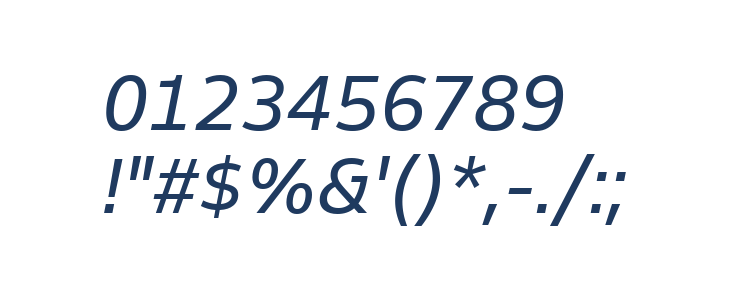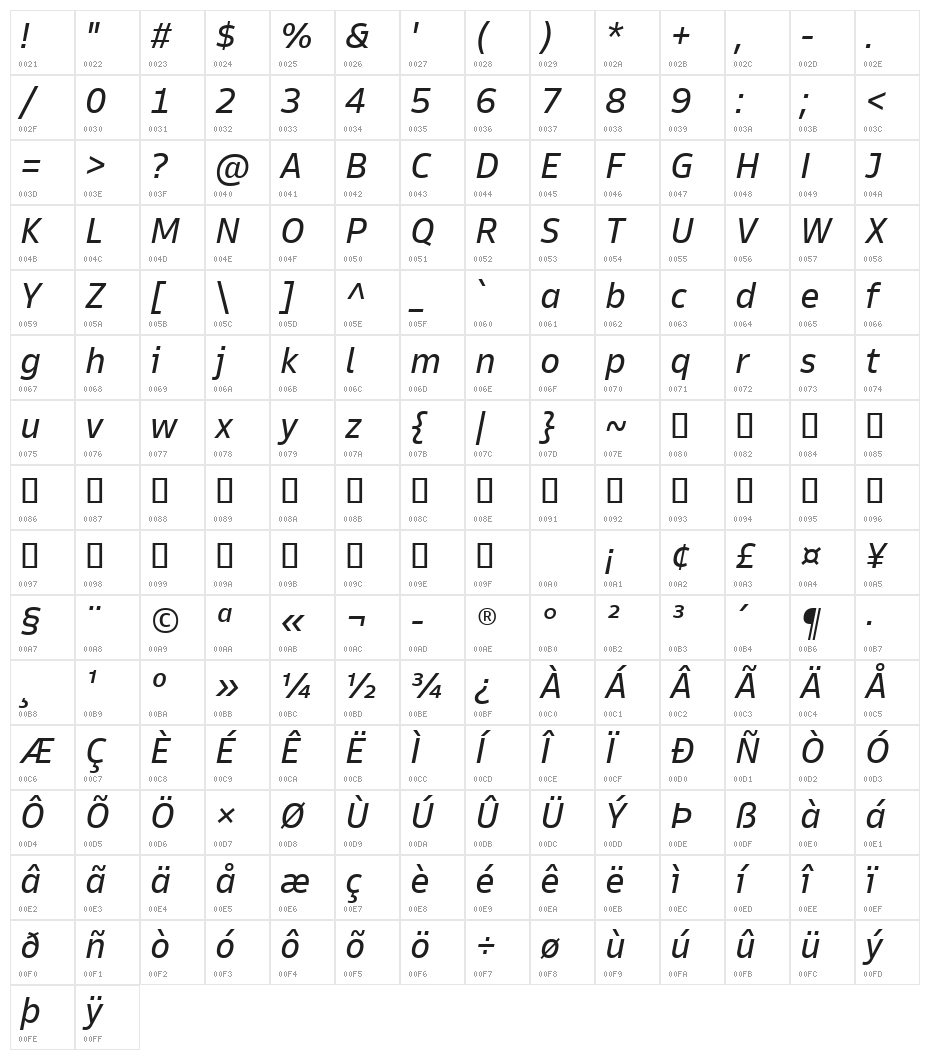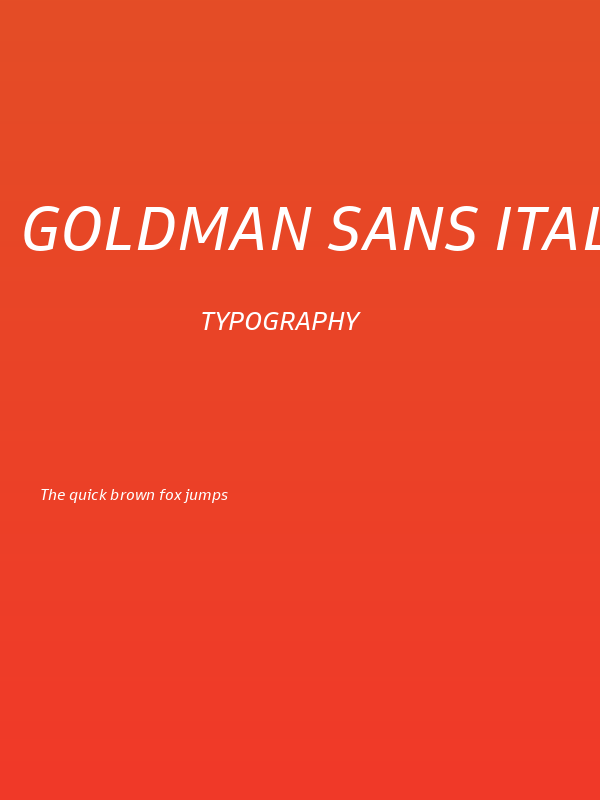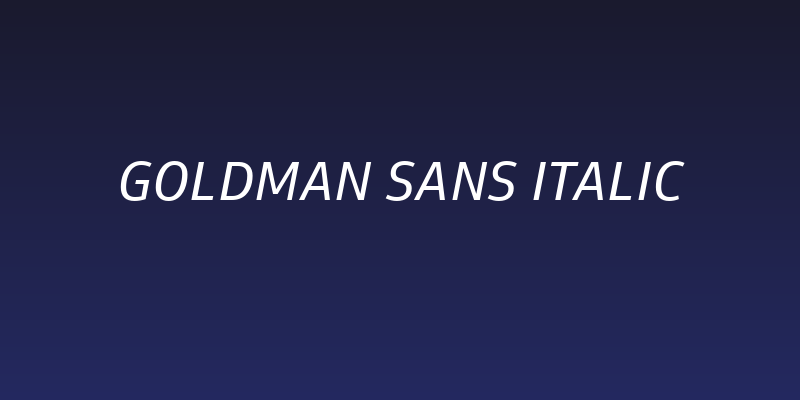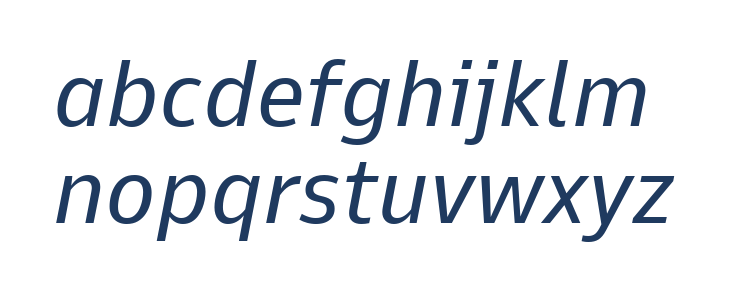
Goldman Sans Italic Font
Goldman Sans Italic Description
This font features a sleek and modern sans-serif design with a slight italic slant, giving it a dynamic and forward-moving appearance. The characters are clean and well-defined, with consistent stroke widths that provide a uniform look across both uppercase and lowercase letters. The numerals are clear and easily distinguishable, making them suitable for a variety of applications. Special characters are included, maintaining the same elegant style. The overall design is minimalistic yet sophisticated, making it versatile for both digital and print media.